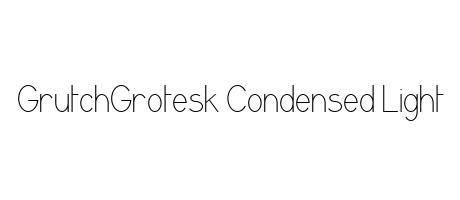
GrutchGrotesk Condensed Light
By Steeve GRUSON
Category Sans-serif , Condensed , Thin
GrutchGrotesk Condensed Light: A whisper of elegance, a delicate dance of condensed forms. Its airy lightness belies a subtle strength, perfect for understated sophistication. Clean lines and refined curves create a timeless feel, ideal for text-heavy projects needing readability and grace.